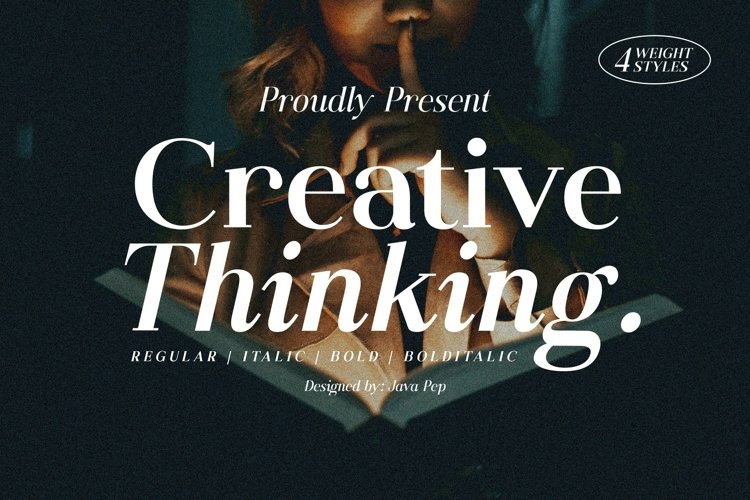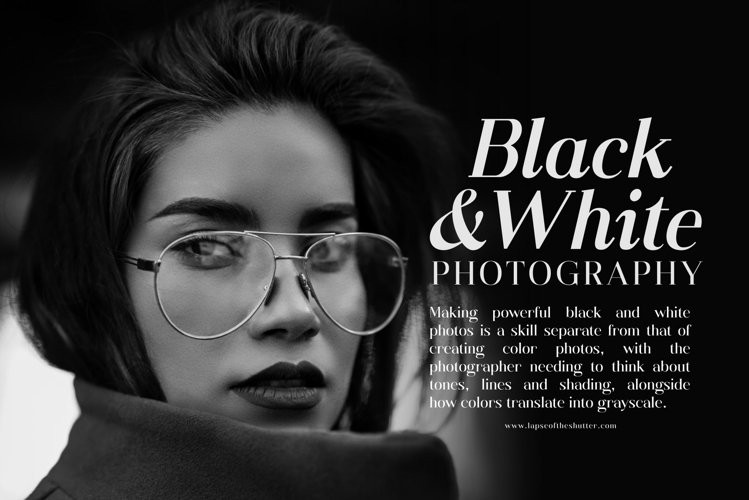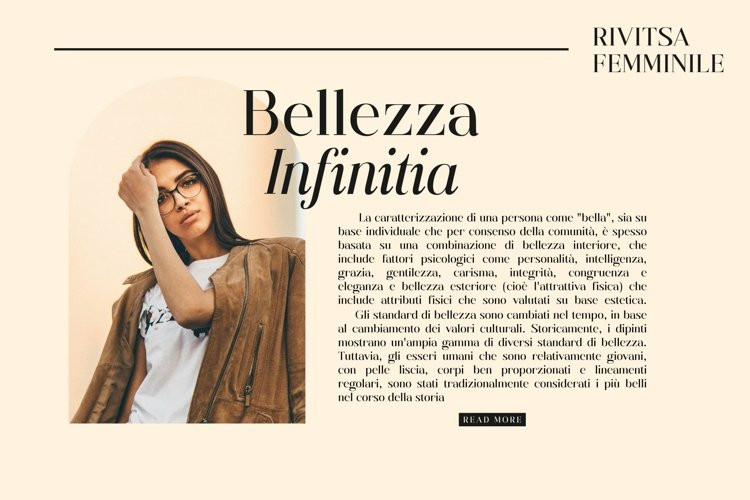
Creative Thinking Font
Creative Thinking FontProudly present a new font that is fresh from the oven Creative Thinking font, an elegant font family that has 4 weight styles regular, italic, bold, and bold-italic. It’s so perfect to combine and mix the weight styles to make an outstanding and beautiful design project. Don’t worry this font is already multilingual and supports more than 30 languages.